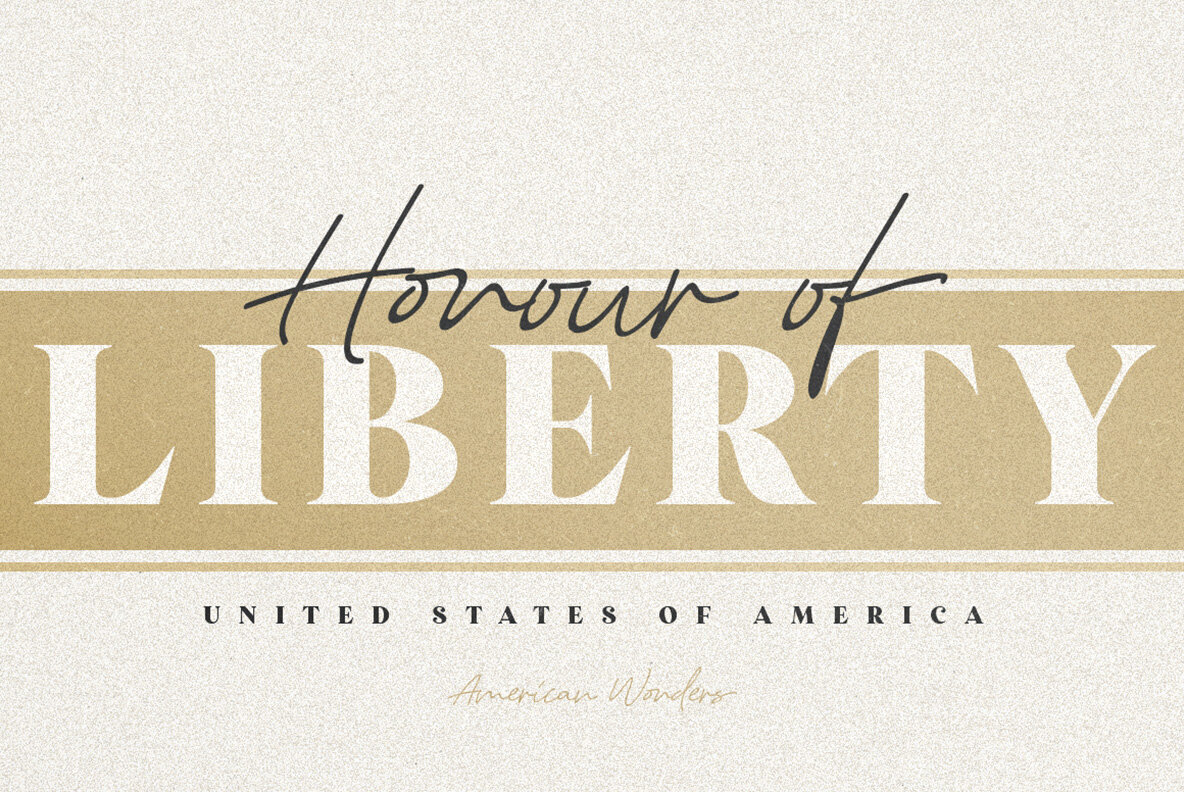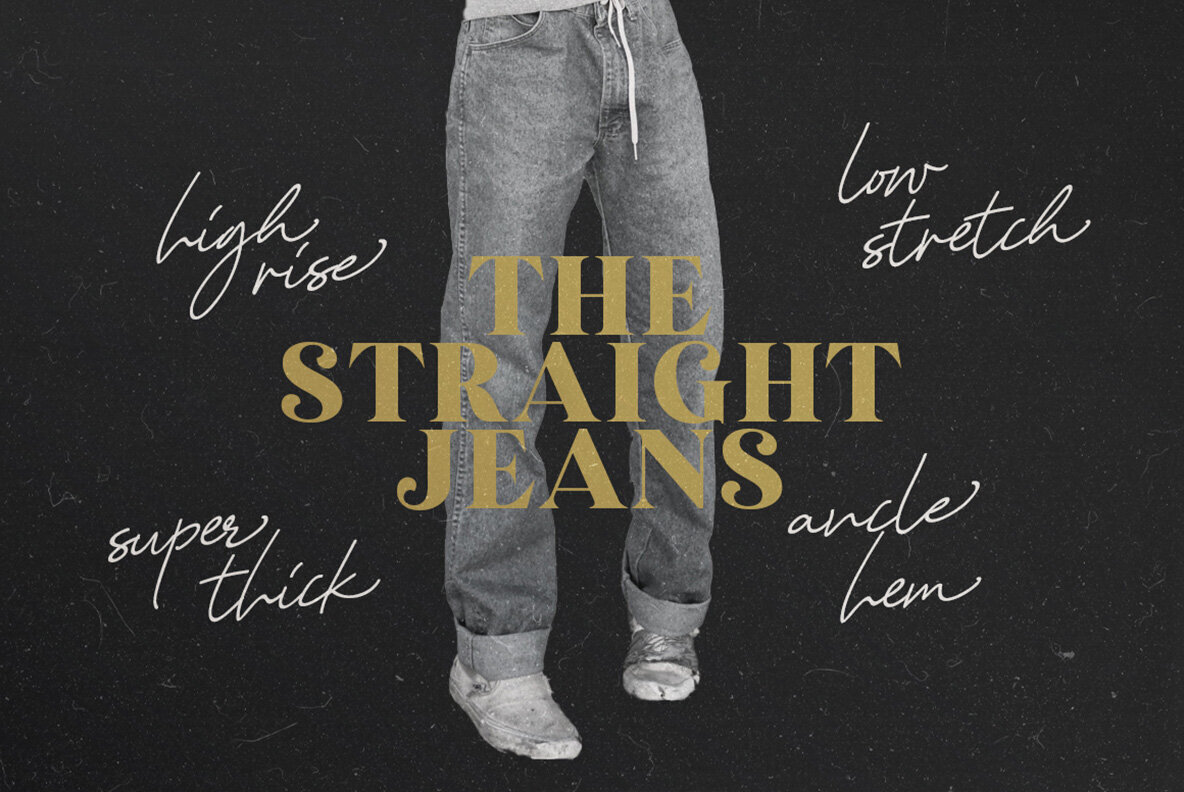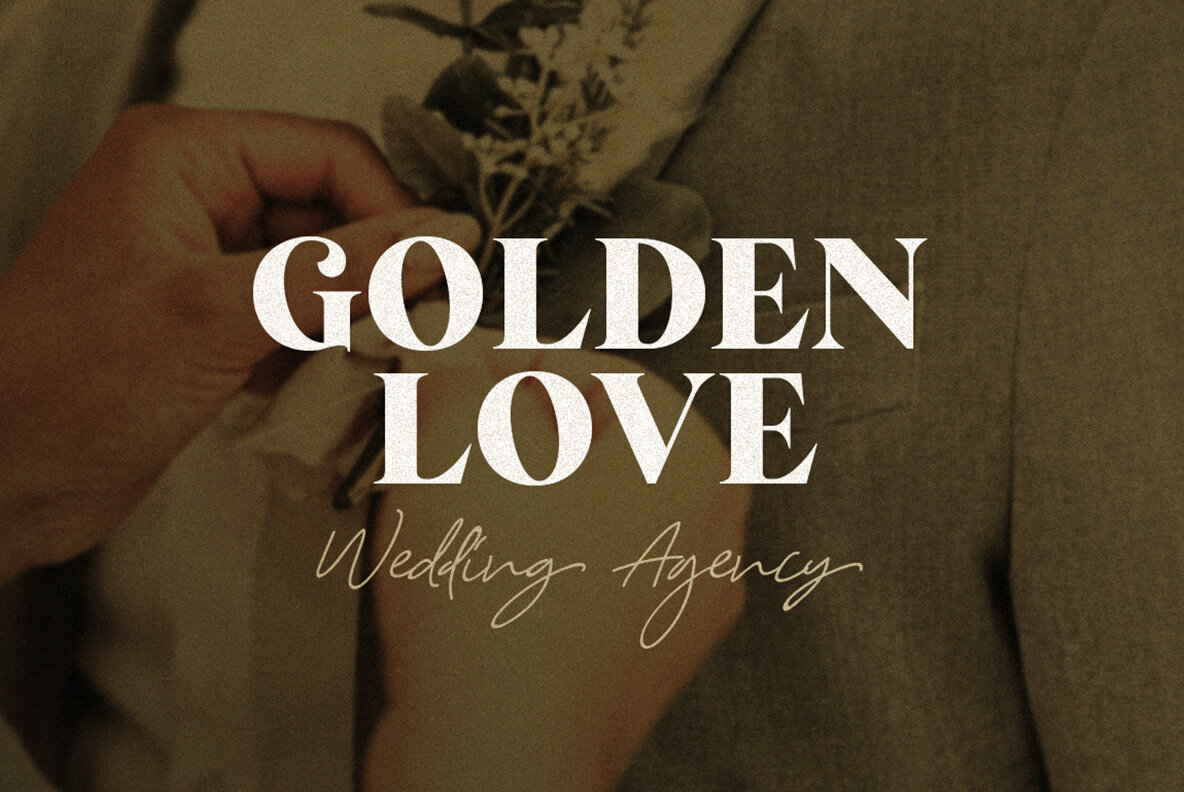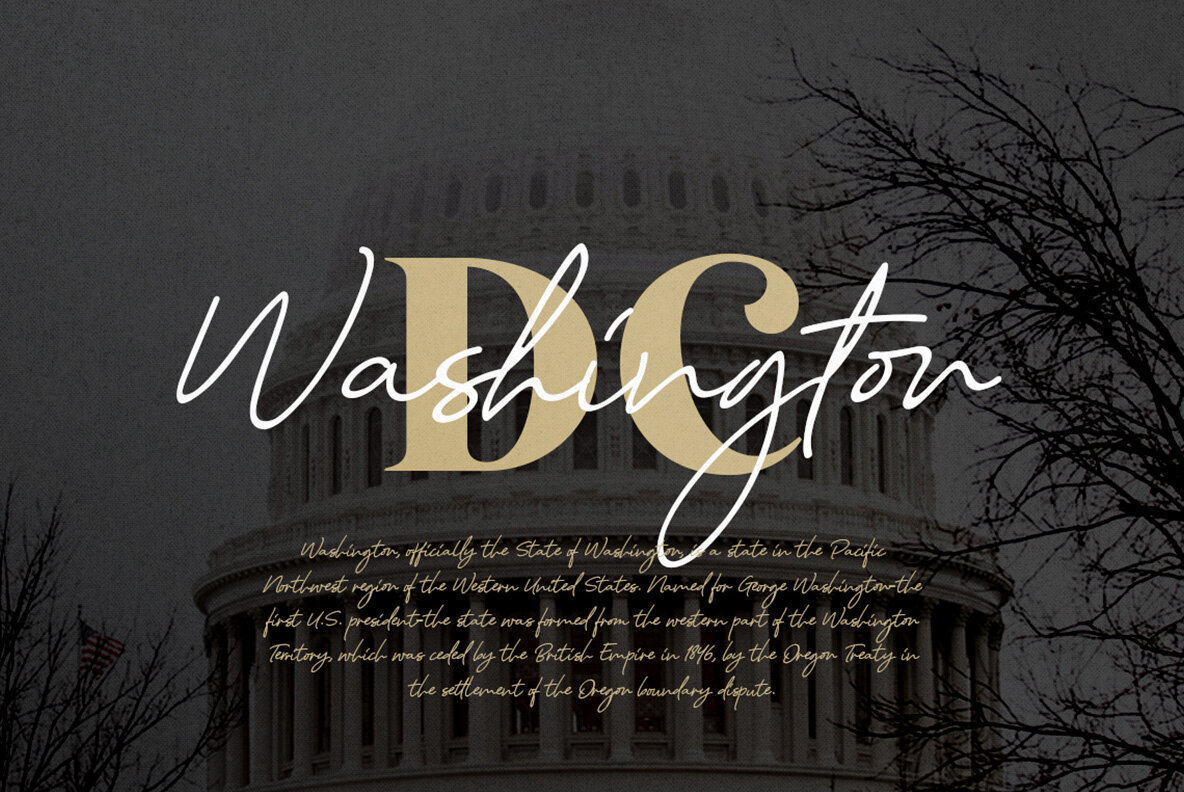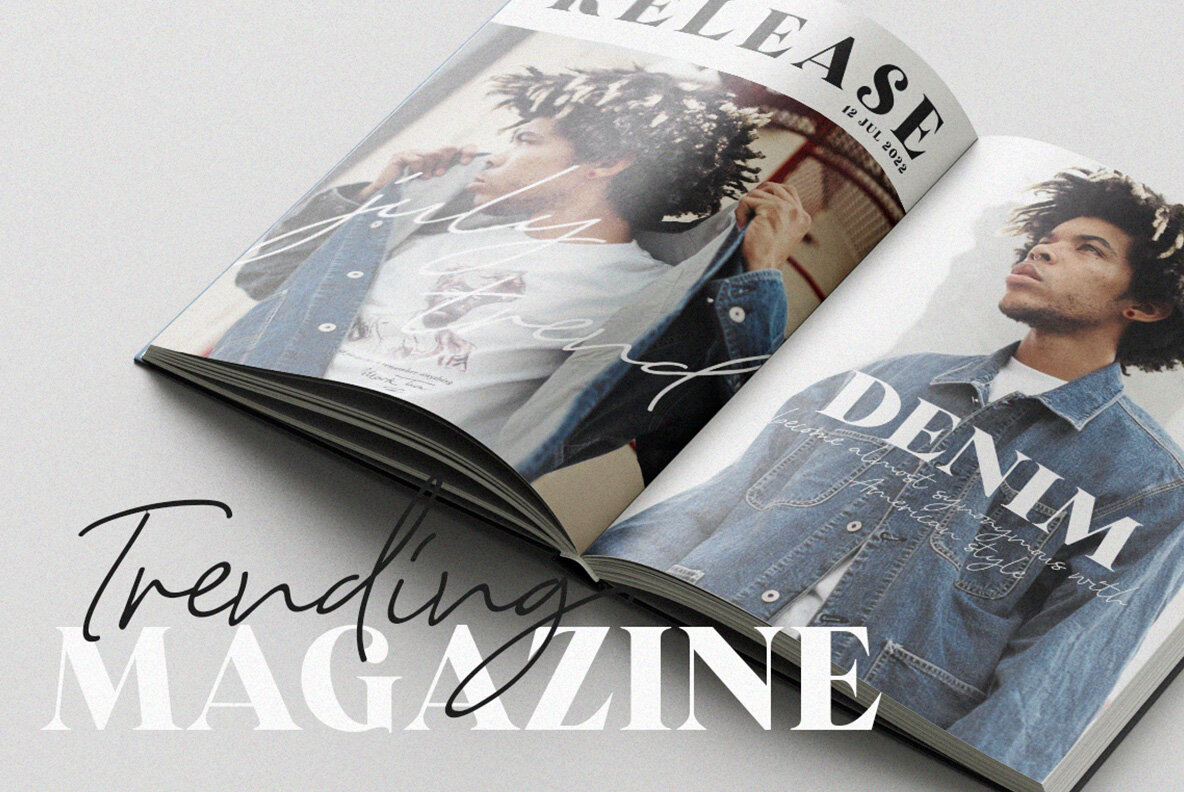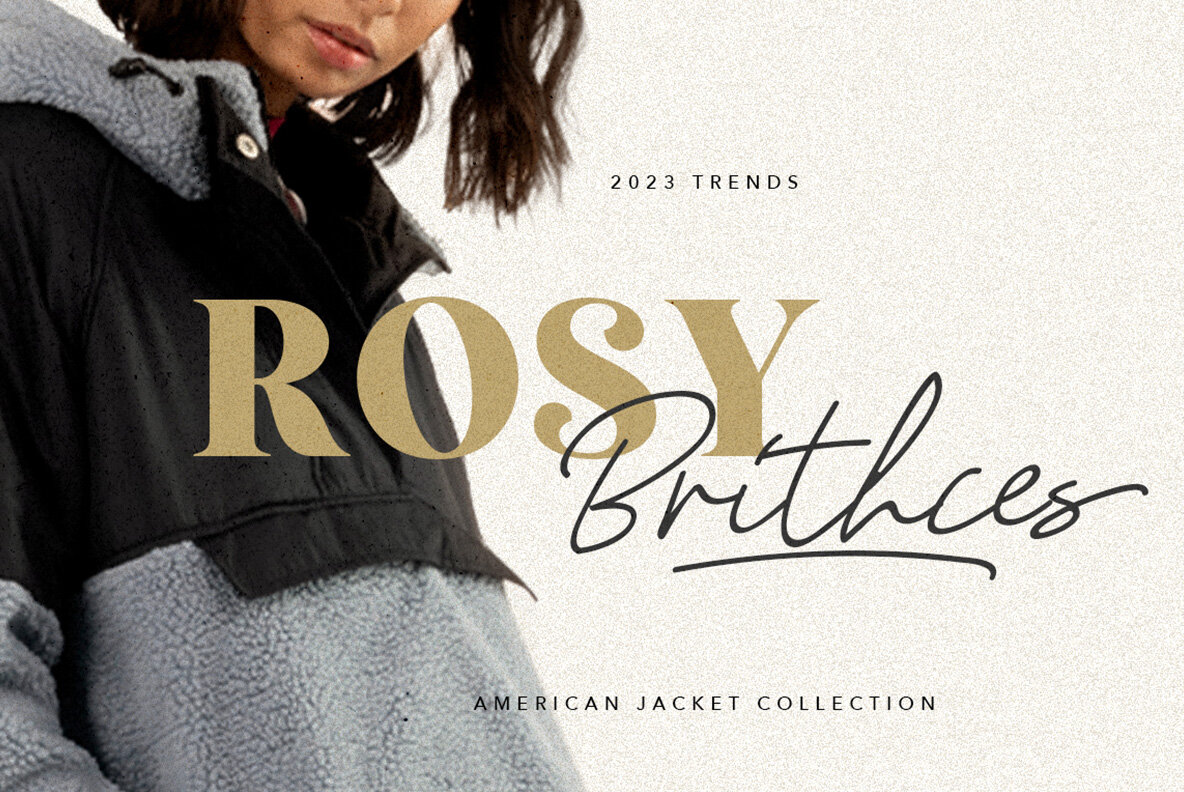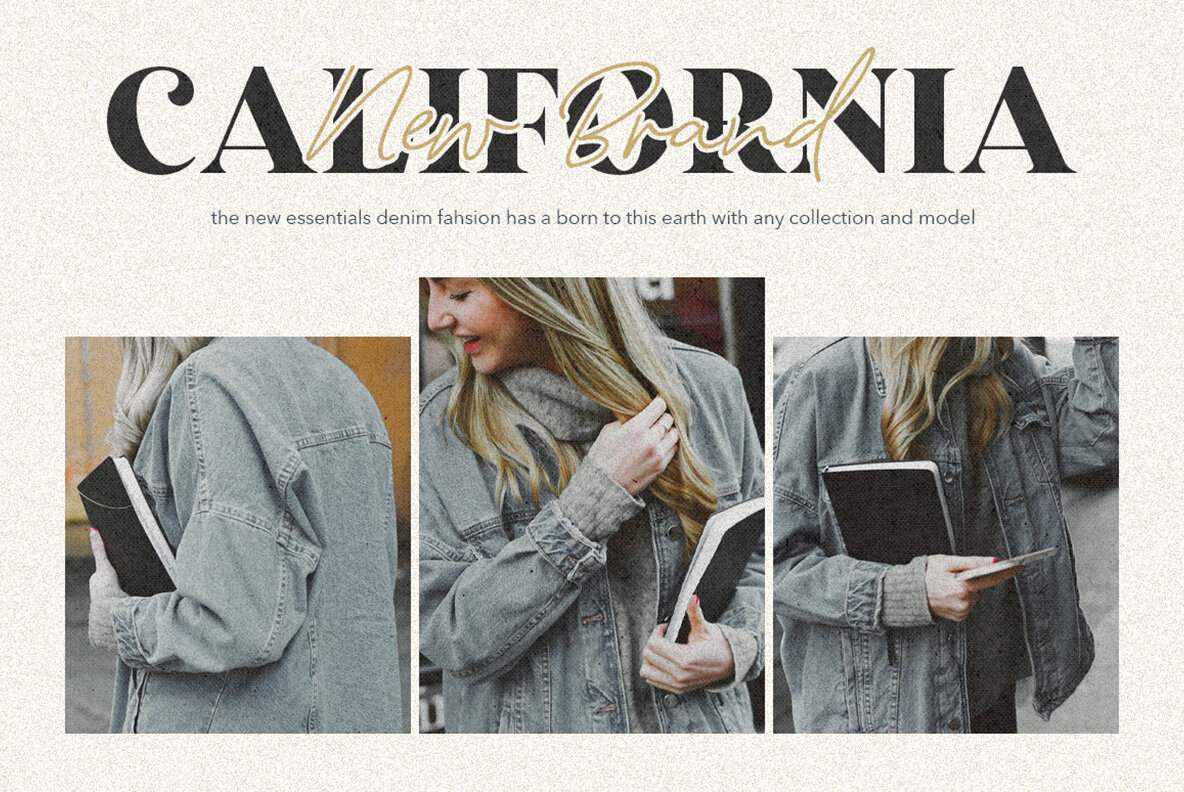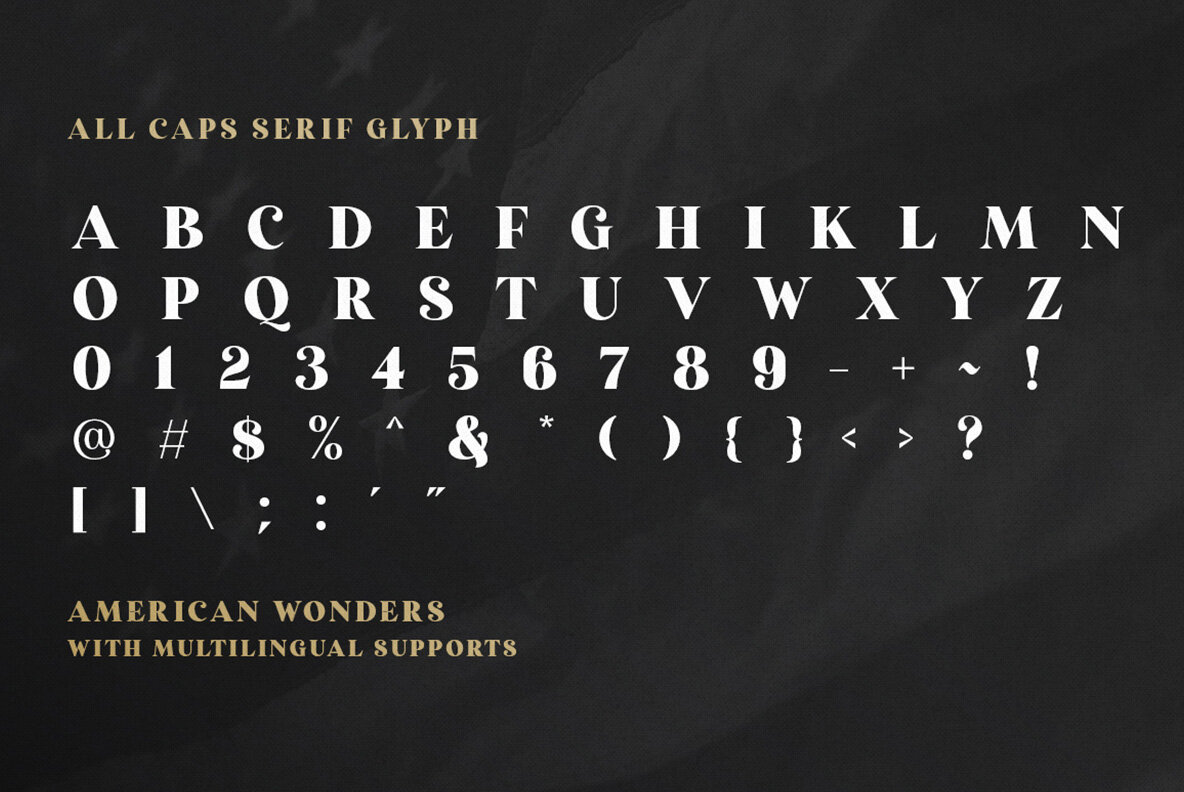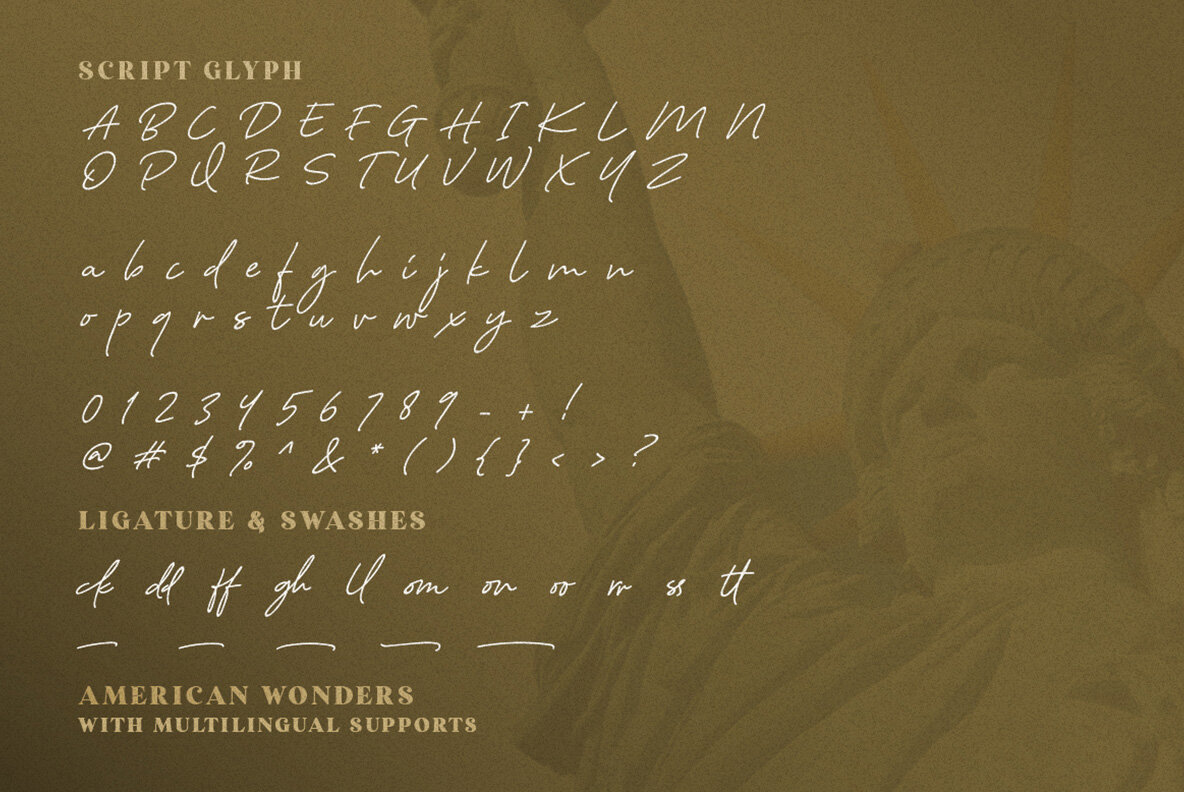
American Wonders Font Duo
American Wonders Script
American Wonders Serif
American Wonders presents an engaging pairing of stylistic diversity in one comprehensive package. This font duo includes a signature script that embodies elegance, and a bold serif that brings a striking presence to your designs.American Wonders: Dual Font Package